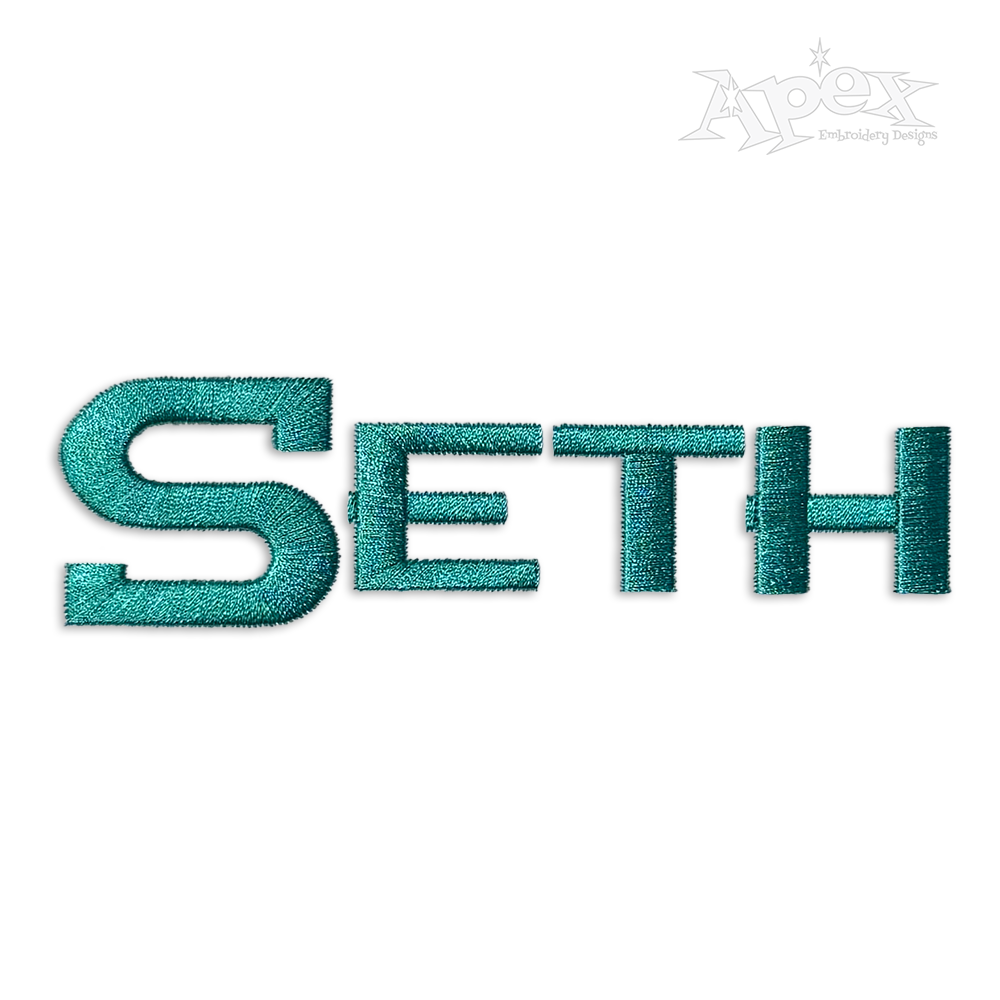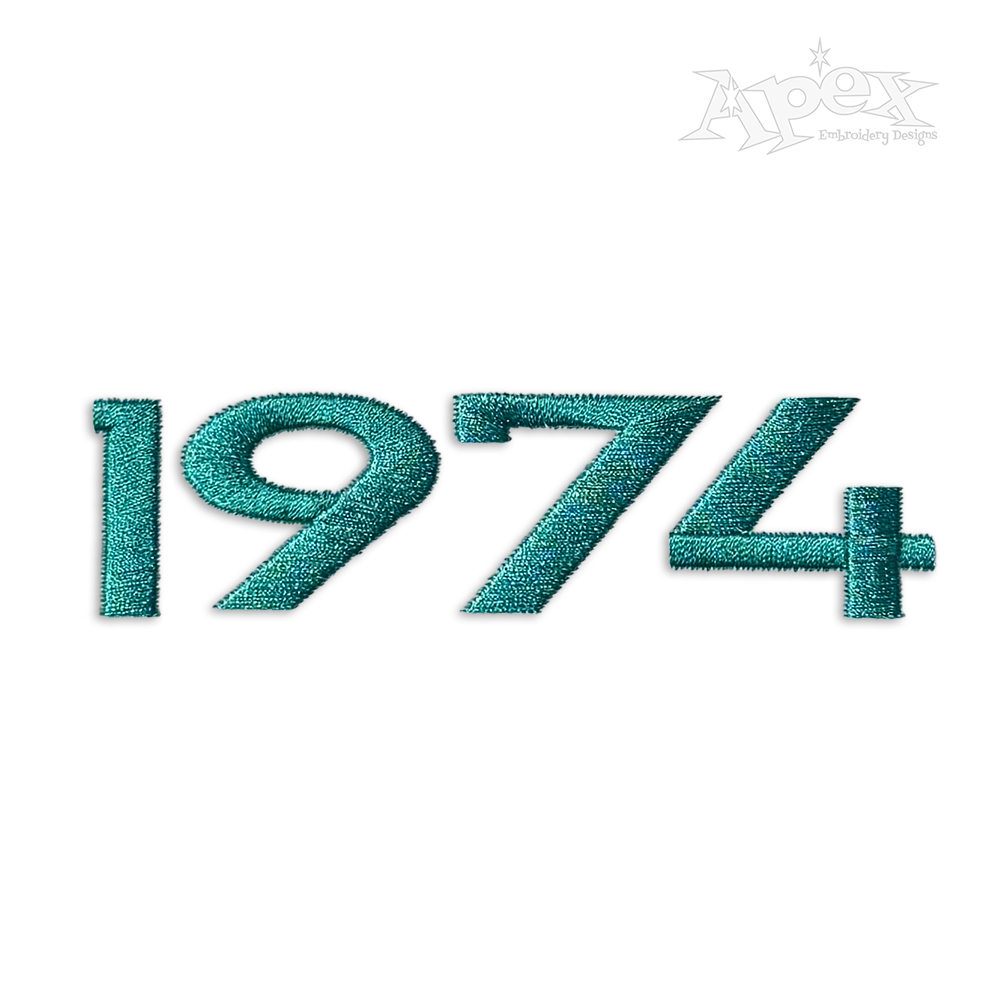
Denver Broncos Embroidery Fonts
Sculpted satin columns honor fierce Mile High stadium pride. Digitized with deliberate tension balance, every curve captures thunderous gridiron energy. Crisp thread travel transforms standard cotton fleece into bespoke sports legacy pieces. Needle penetrations lock cleanly, casting rich shadows across high-density fills that echo championship drive.
- Stitch structure: Premium satin columns with reinforced foundational underlay.
Project Ideas for Denver Broncos Embroidery Fonts
Versatile block geometry elevates stadium apparel alongside elevated lifestyle goods. Stitch bold personal statements across heavy outerwear, or adapt clean athletic lines for sophisticated home accents:
- Bespoke resort wear, collegiate windbreakers, and sideline coaches jackets.
- Personalized gifting projects: custom monogramming on weekender duffels and game-day blankets.
- Luxury table linens, bar towels, and canvas beverage totes for upscale tailgate hospitality.
- Heirloom embroidery keepsakes, youth jersey accents, and varsity celebration banners.
Optimized scale provides crisp readability across diverse garment coordinates:
- Center chest: Execute bold team statements or squad acronyms across fleece hoodies.
- Left chest crest: Frame player initials or numeric identifiers on polo shirts.
- Cuff and hem: Apply understated 0.5" lettering for subtle monogram detail.
- Corner diagonal: Orient numbers across heavy canvas stadium bags or tailored outdoor pillows.
Denver Broncos Embroidery Fonts Craft & Letterform Details
Athletic typography demands unyielding structural integrity. Digitizing process applies calibrated pull compensation to preserve square terminals, sharp bevels, and fluid inner bowls. Each stroke in this satin stitch alphabet glides across underlay stitching designed to prevent fabric puckering on heavy knits. Hand-tuned entry and exit points keep travel lines concealed beneath glossy thread beds. Letterforms maintain razor-sharp profile definition, commanding visual weight without thread density distortion.